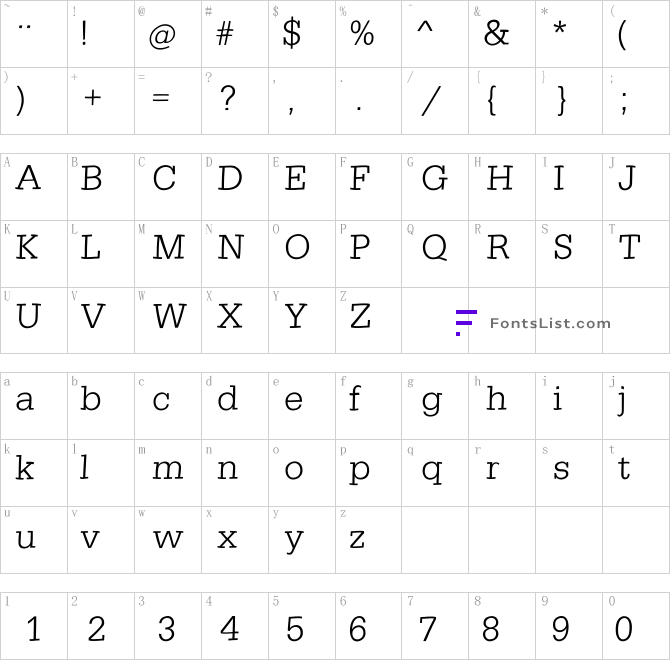
- Font Name:CairotiquaFSFreestyle
CairotiquaFSFreestyle-Italic.ttf is a very beautiful artistic font, CairotiquaFSFreestyle-Italic.ttf is widely used in the design and printing of various books and pictures,CairotiquaFSFreestyle-Italic.ttf has a strong visual impact,CairotiquaFSFreestyle-Italic.ttf is a commonly used font in newspapers, magazines and books, and is used in posters, e-commerce Poster design, store design, logo design, font design and other fields.CairotiquaFSFreestyle-Italic.